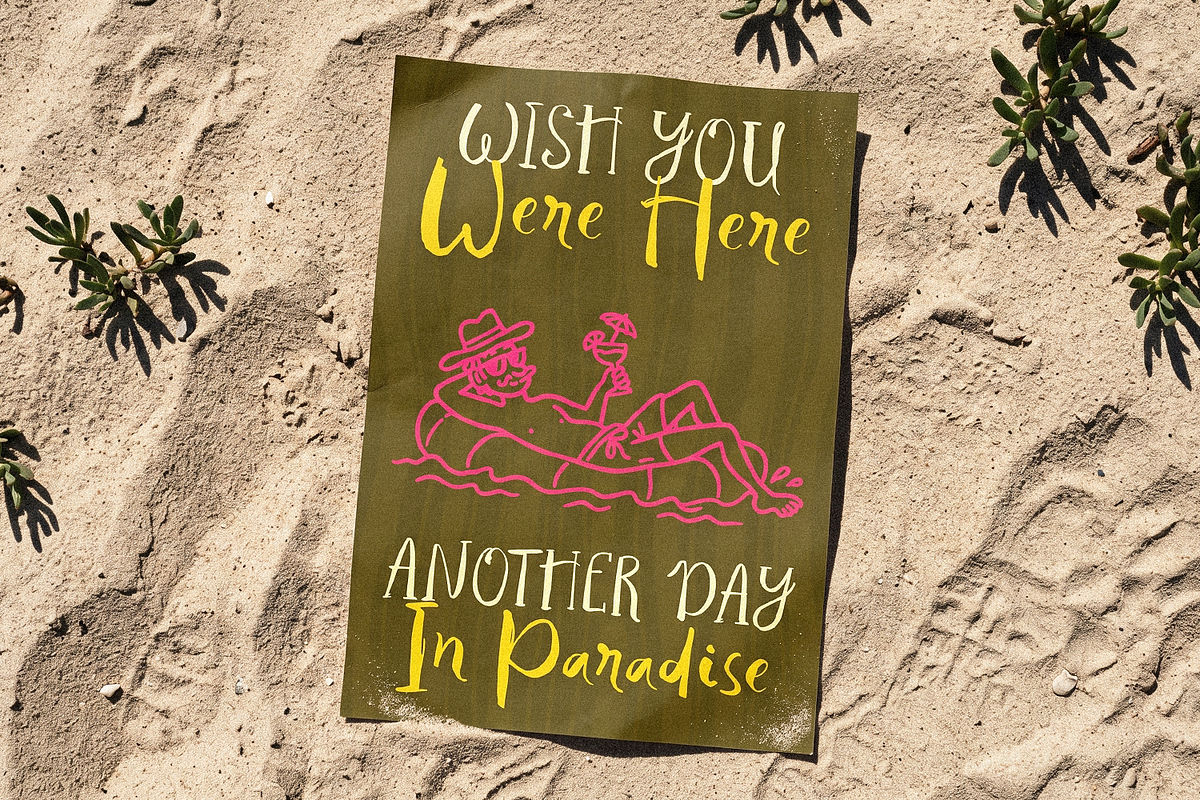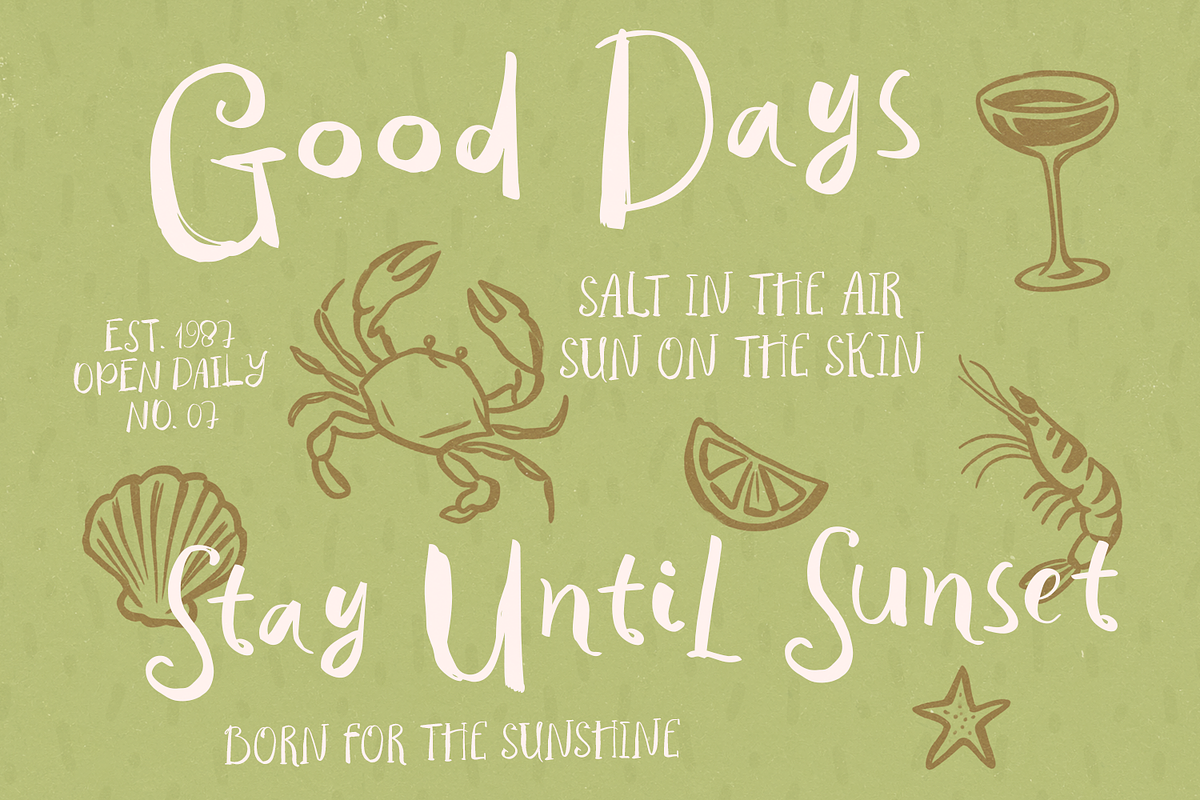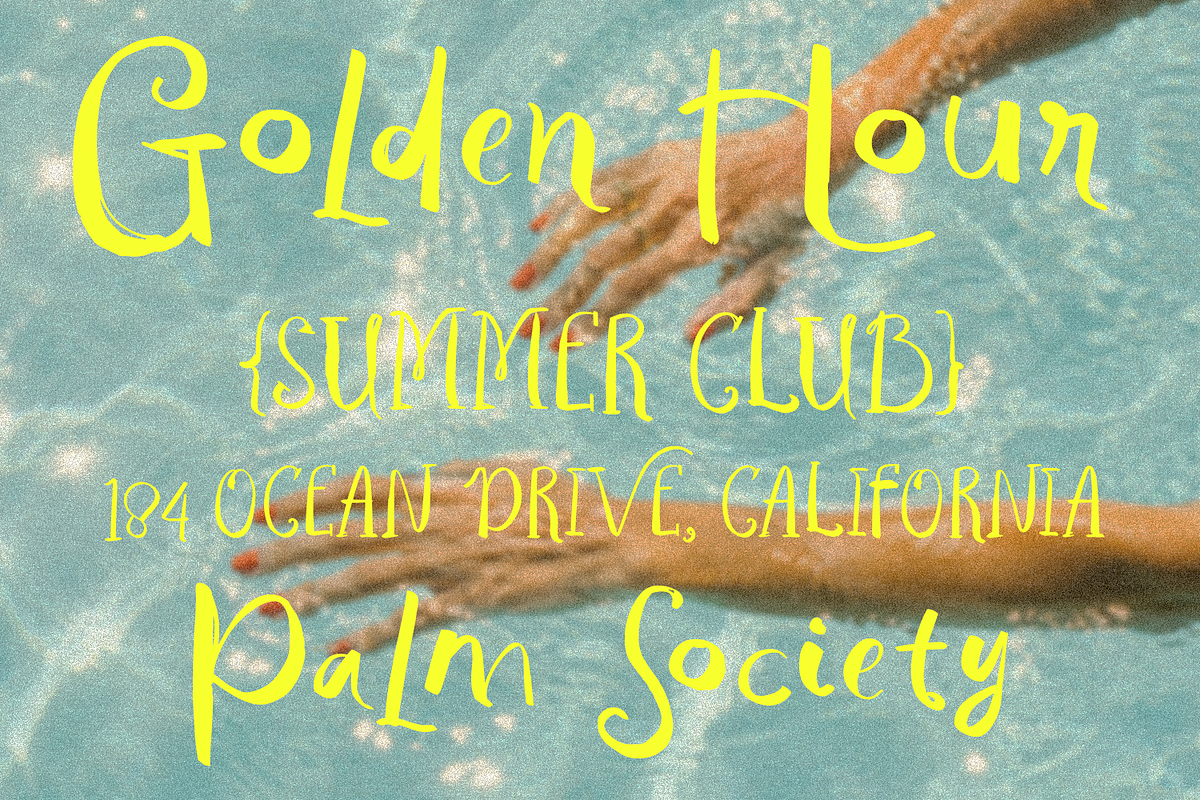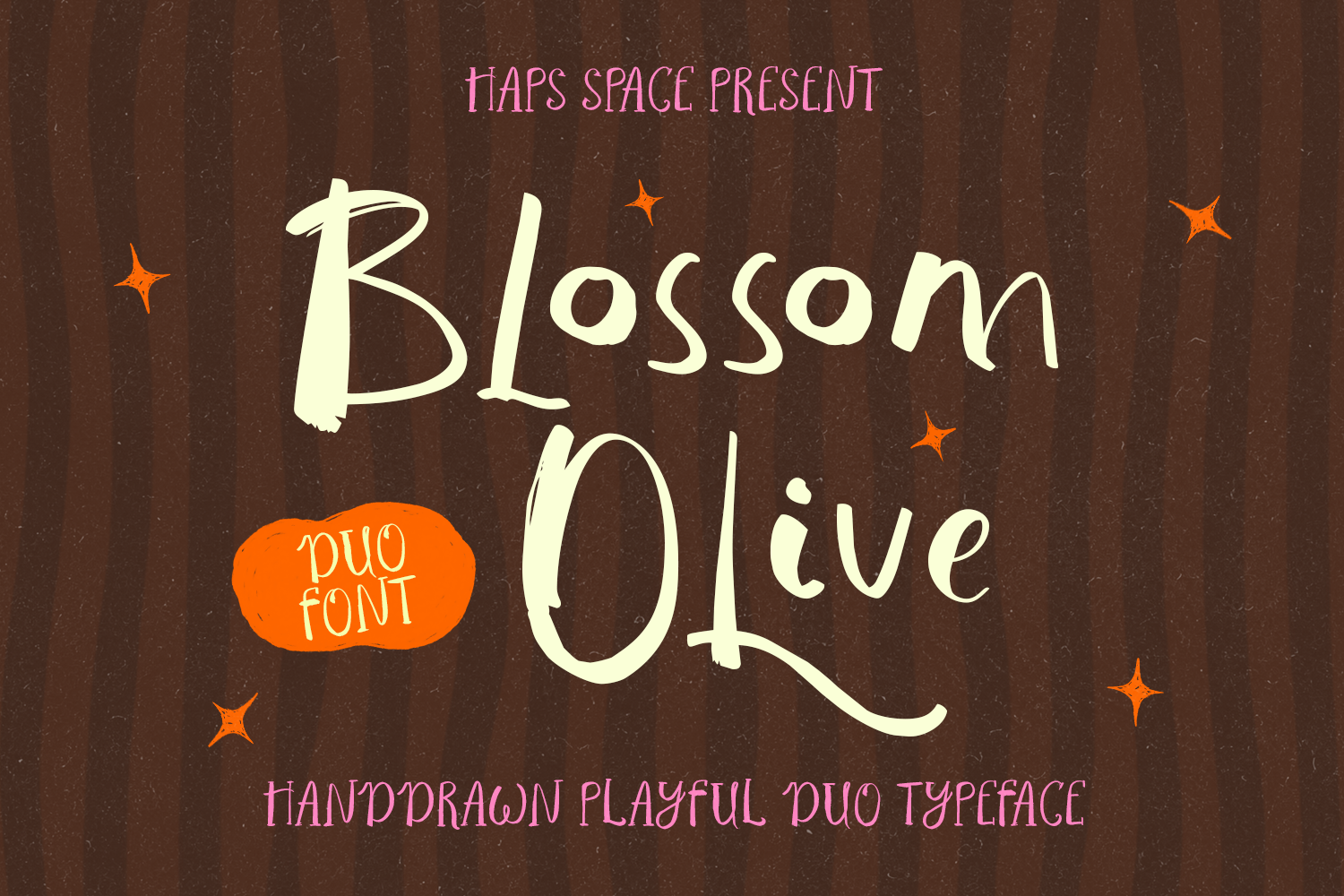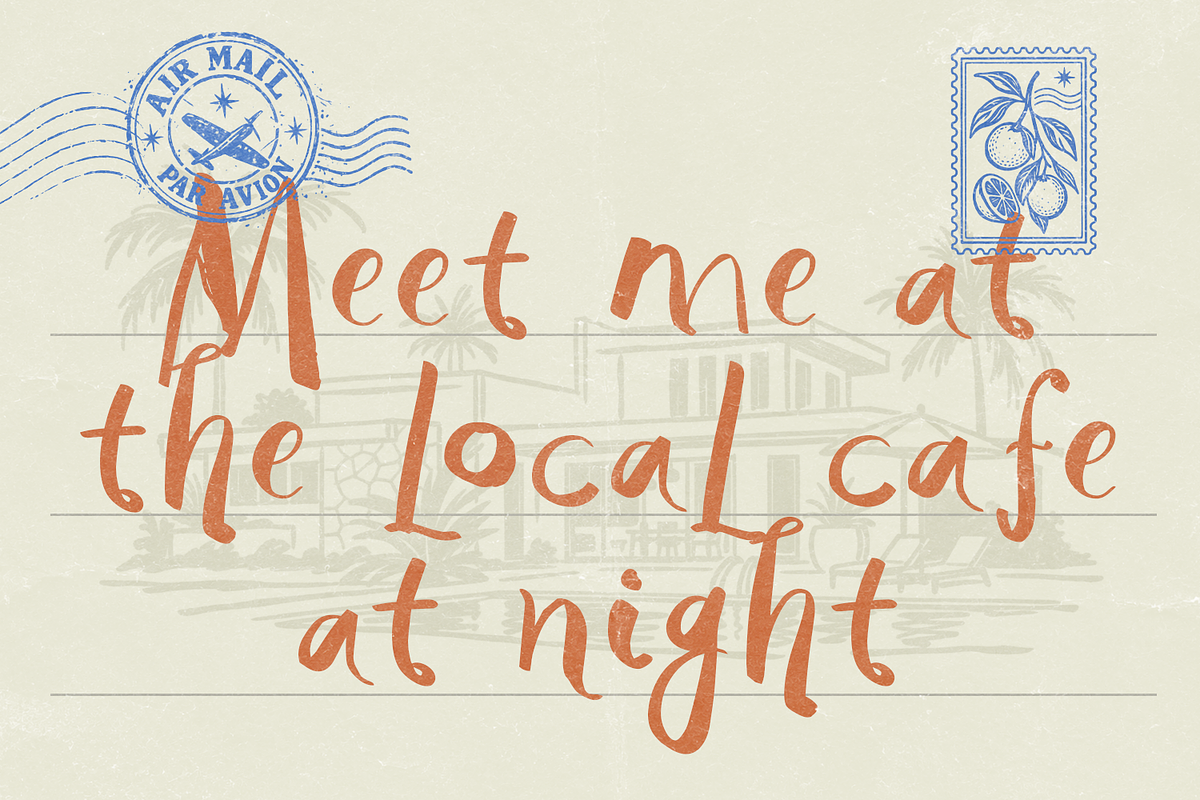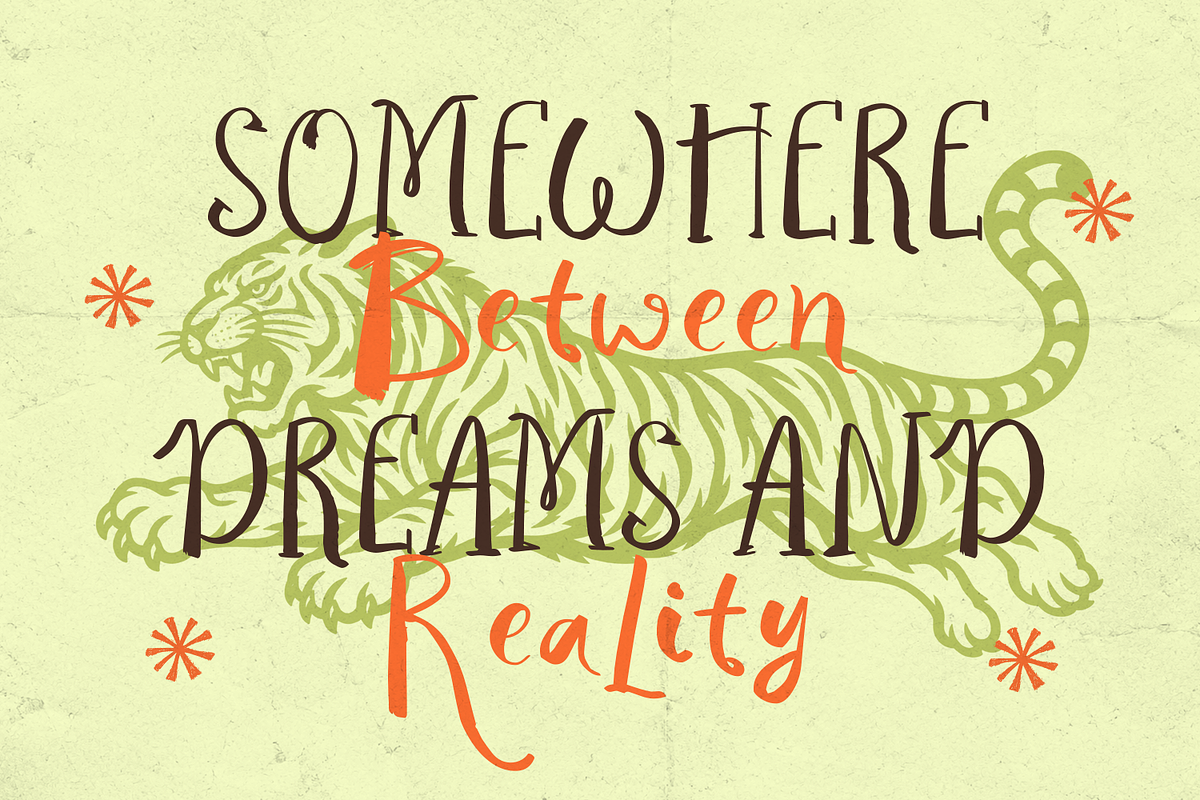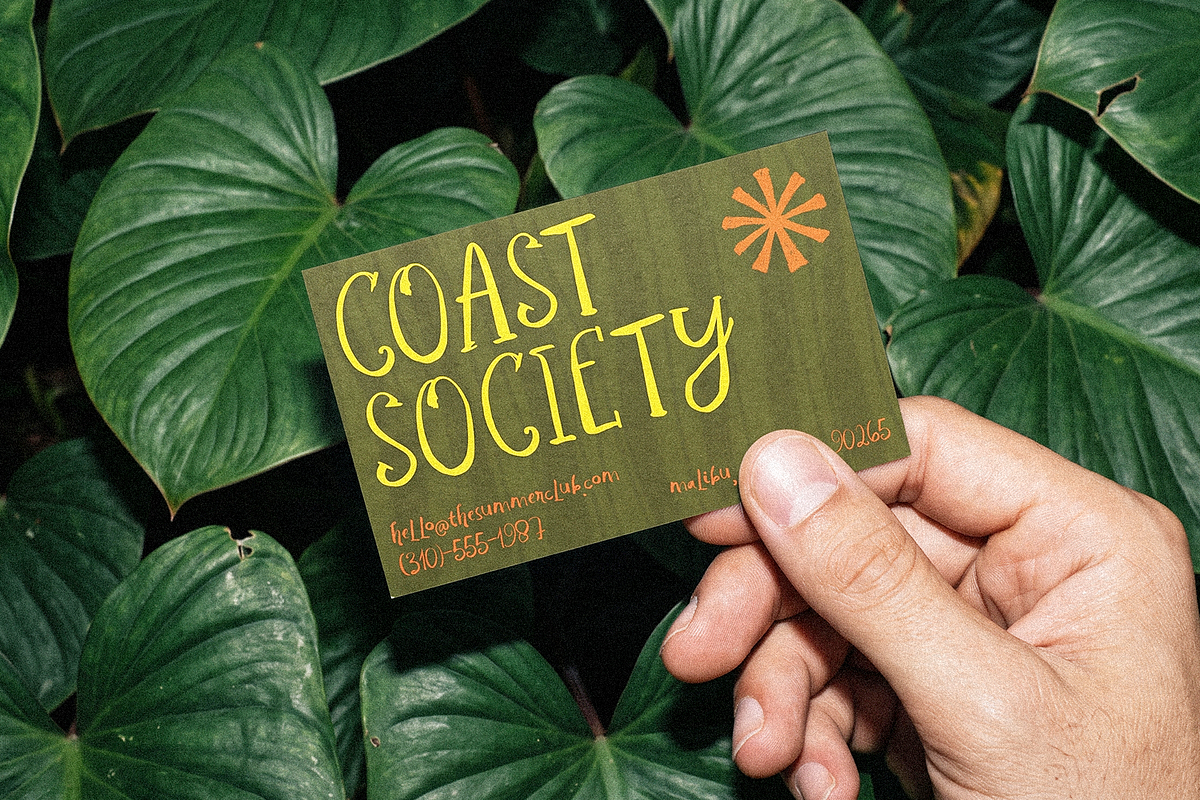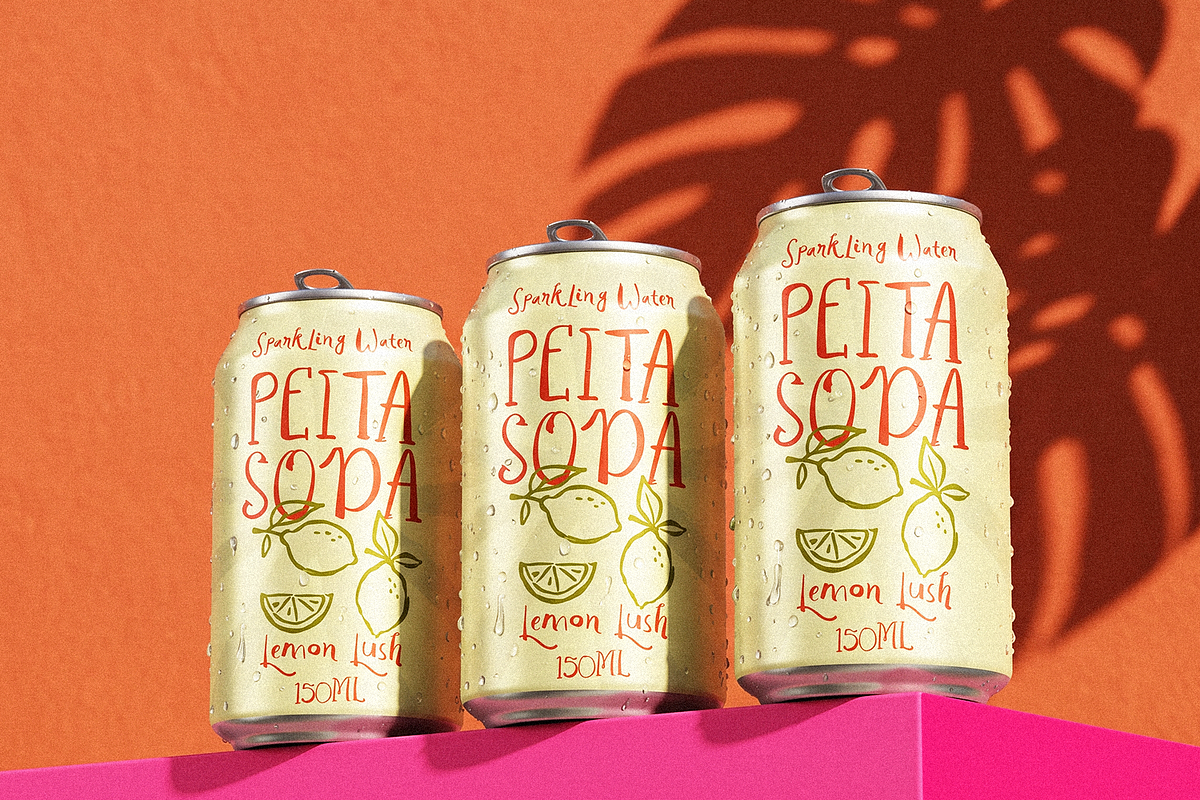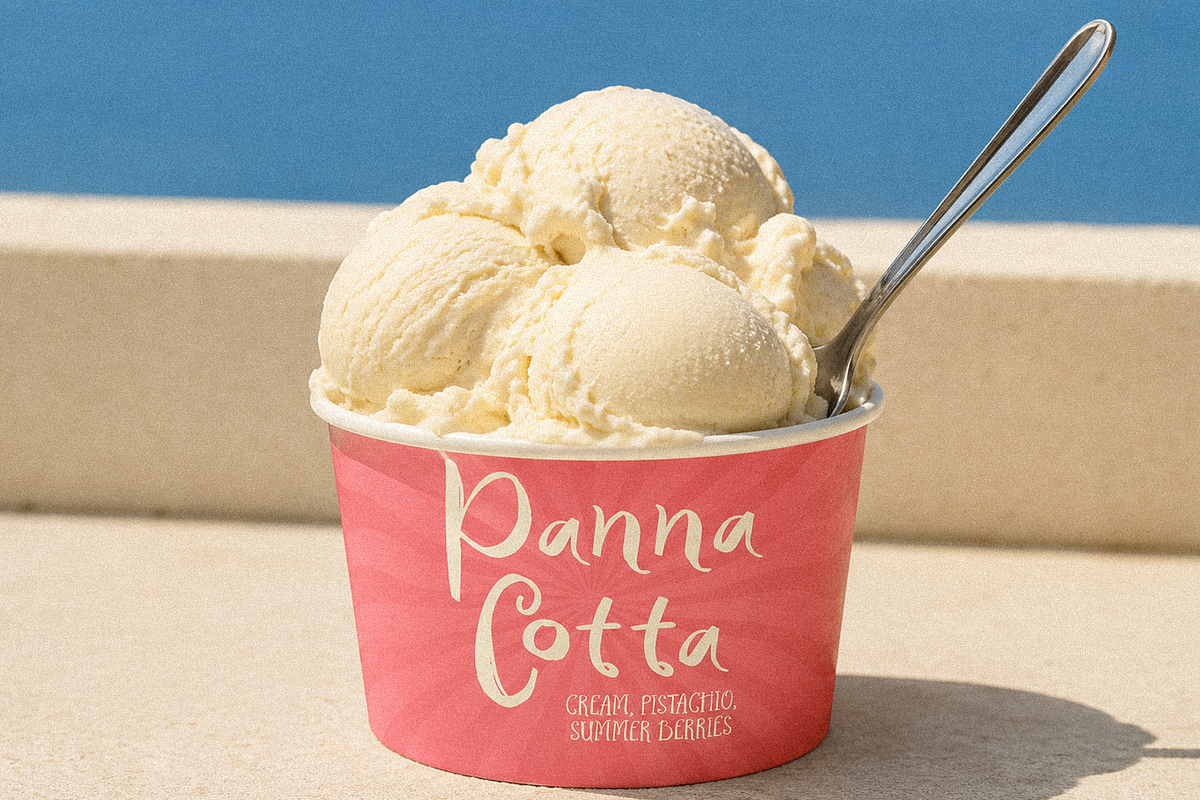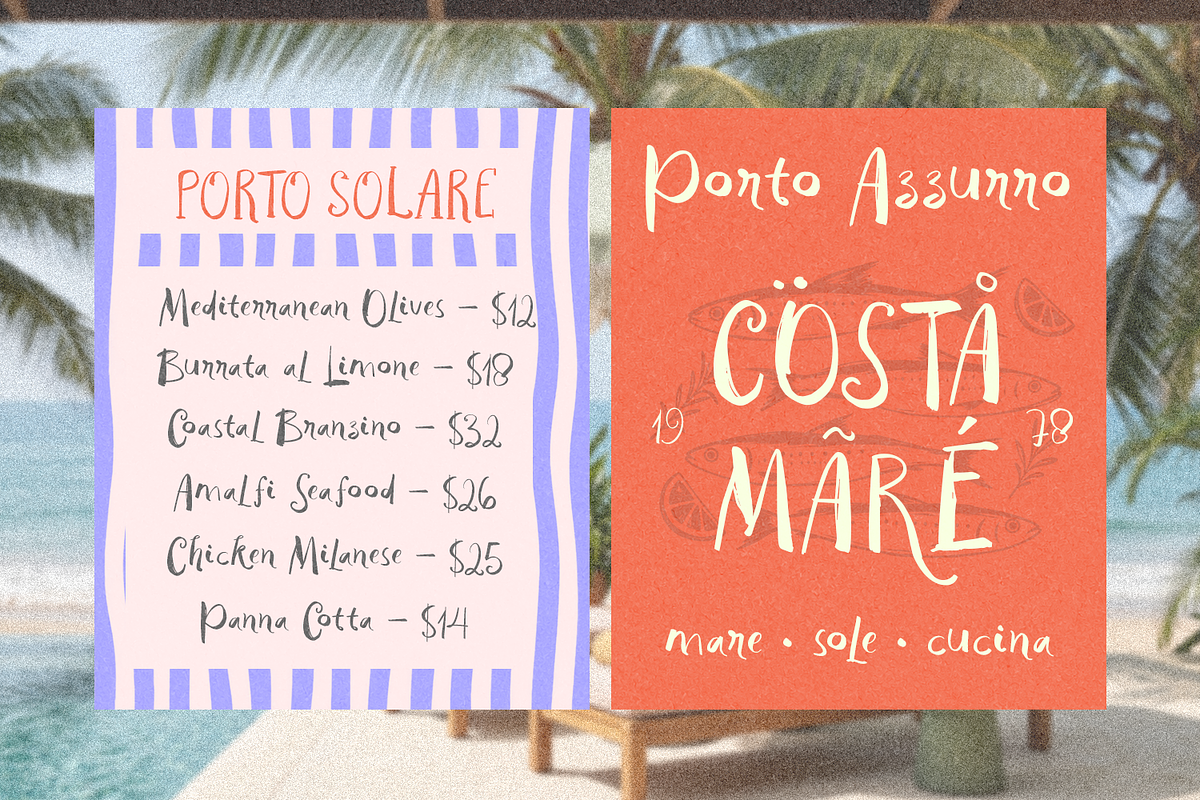
Blossom Olive Font Duo
Blossom Olive is a charming, hand-drawn playful duo typeface designed to bring warm retro energy, organic character, and whimsical personality to your creative projects. Featuring rough brush-like textures, expressive letter proportions, and a delightful mix of script and print styles, this font combination captures a fun vintage aesthetic that easily brightens up any layout.
Crafted with high attention to creative flexibility, Blossom Olive is ideal for design layouts that require a cheerful, nostalgic, and handcrafted artistic touch.
- Complete Character Duo Set: Includes full font duo styles for seamless pairing and dynamic text layouts.
- Numbers & Punctuation: Complete set of numerals, standard symbols, and playful punctuation marks.
- Hand-Drawn Texture: Authentic brush details and organic strokes for a real handcrafted finish.
- Multilingual Support: Accented characters supporting various European and Latin-based languages.
Ideal Applications:
- Children's Books & Media: Storybook covers, playful titles, fun headers, and educational materials.
- Creative Branding & Packaging: Eye-catching packaging for snacks, organic goods, toys, and artisanal craft products.
- Event Decor & Greeting Cards: Charming typography for birthday invitations, greeting cards, quote prints, and banners.
- Apparel & Merchandise: Retro graphic prints for t-shirts, tote bags, stickers, and custom stationery.
- Social Media Content: Standout text overlays for posts, graphics, thumbnails, and blog headers.